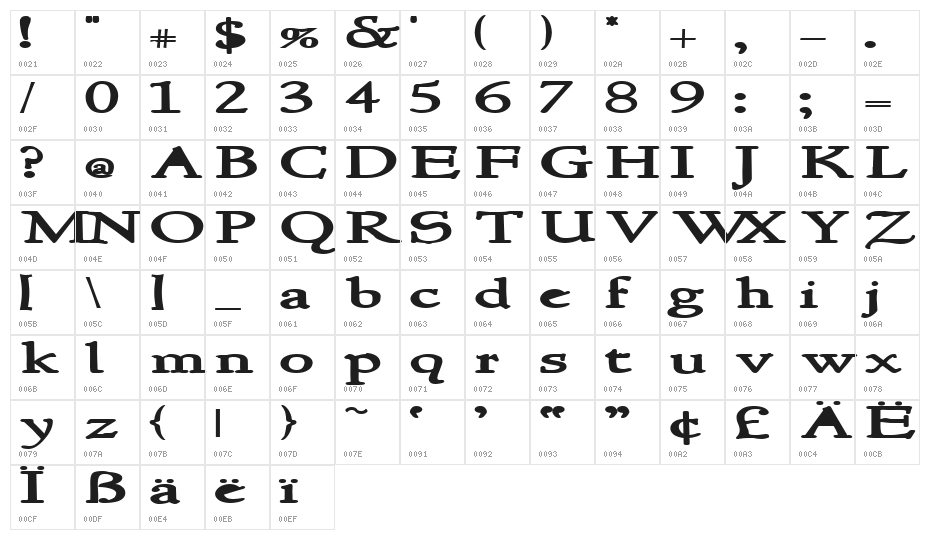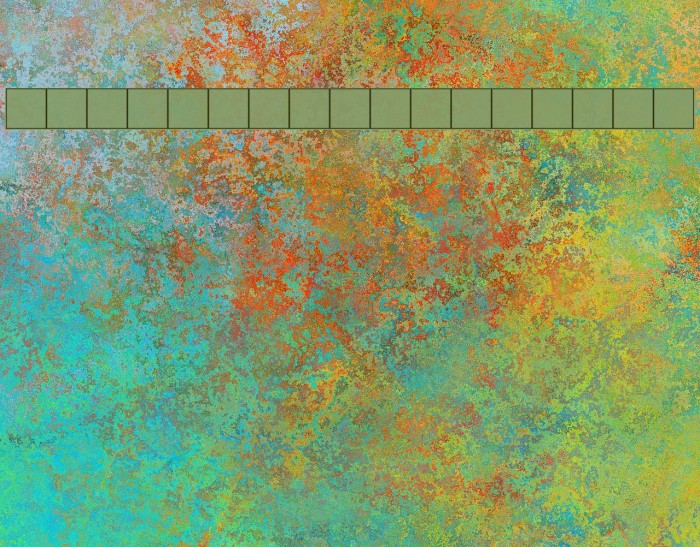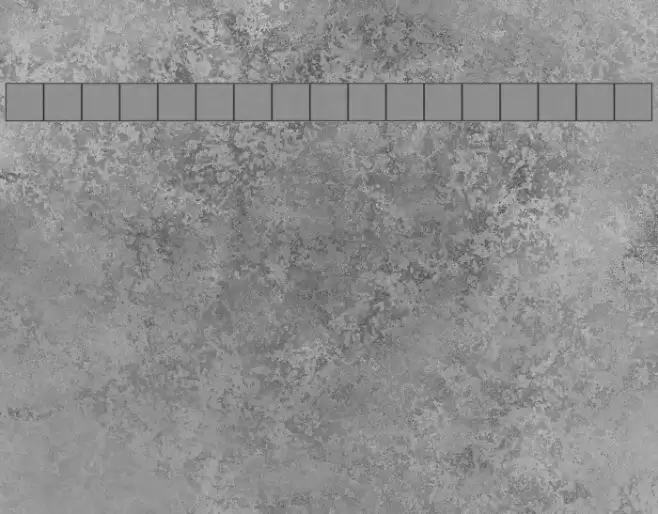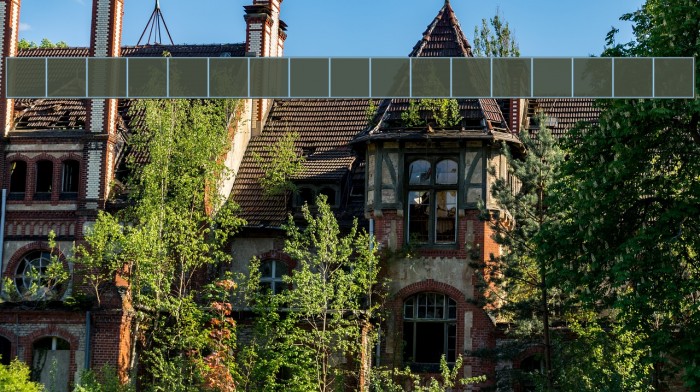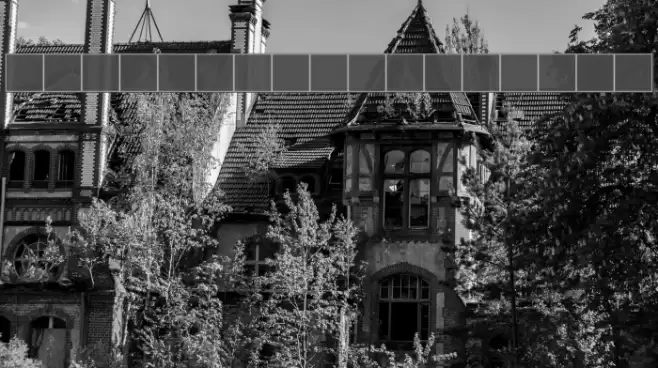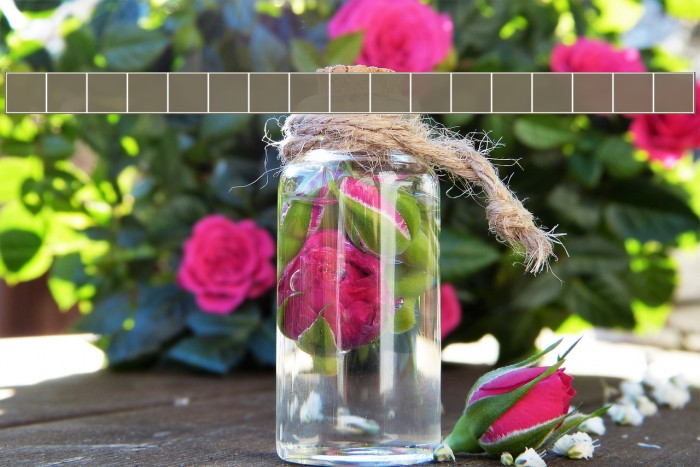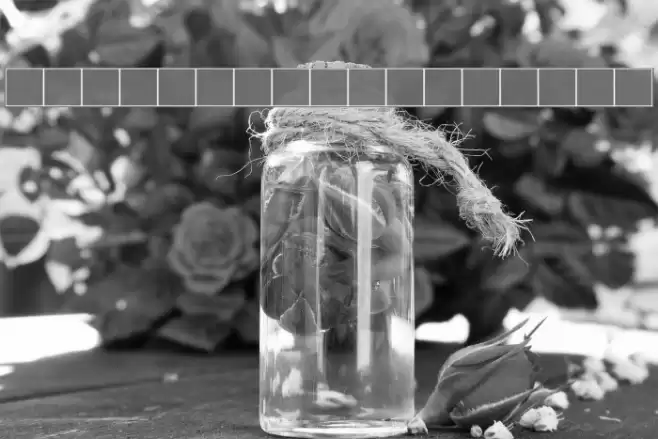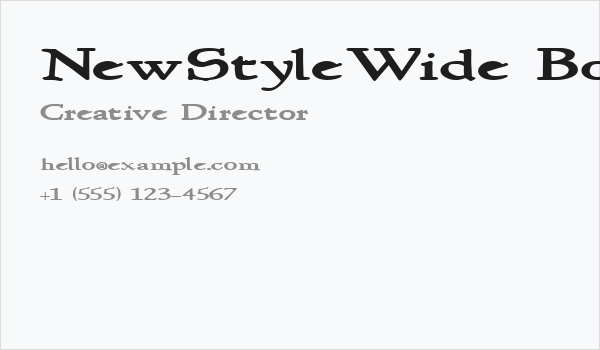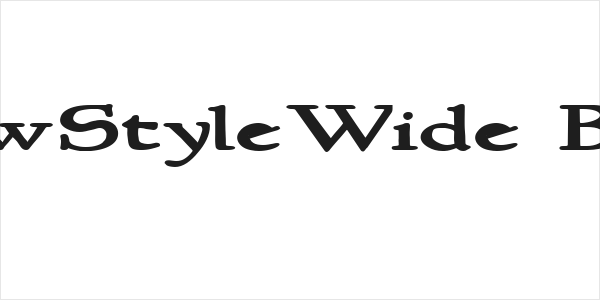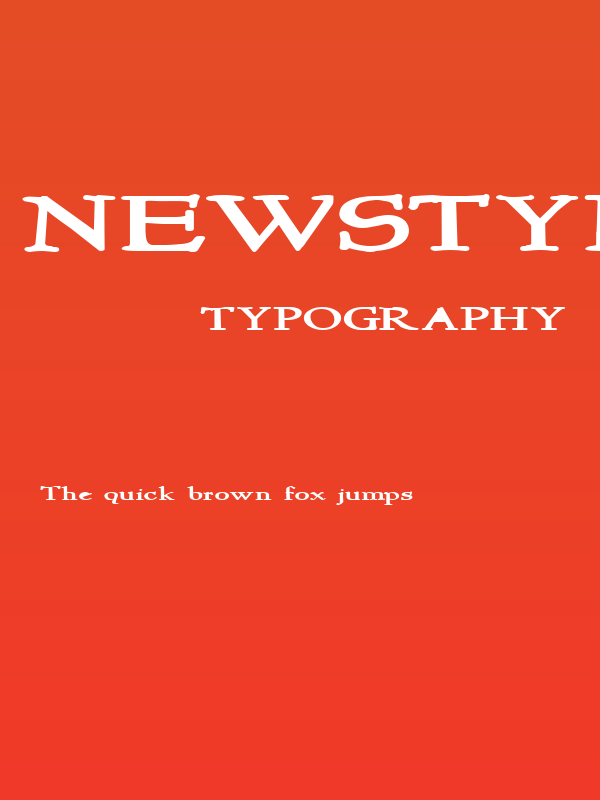
NewStyleWide Bold Font
NewStyleWide Bold Description
This font features a bold and wide design, characterized by its expansive letterforms and strong presence. The strokes are thick and consistent, providing a sense of stability and confidence. The characters are evenly spaced, contributing to a clean and organized appearance. This style is modern and impactful, making it suitable for attention-grabbing headlines and statements. The font's boldness ensures readability from a distance, while its wide structure adds a unique flair to any design.
| Proposed Projects | Ideal for branding, advertising, poster design, and any project requiring a strong visual impact. |